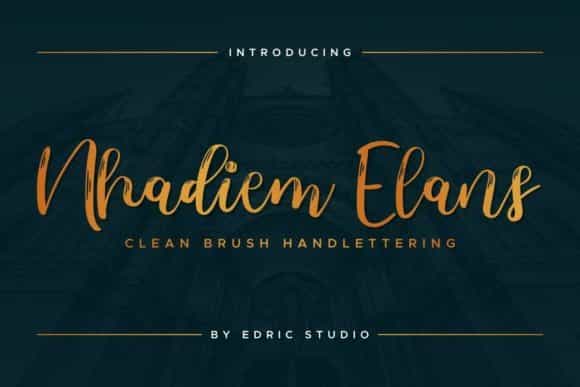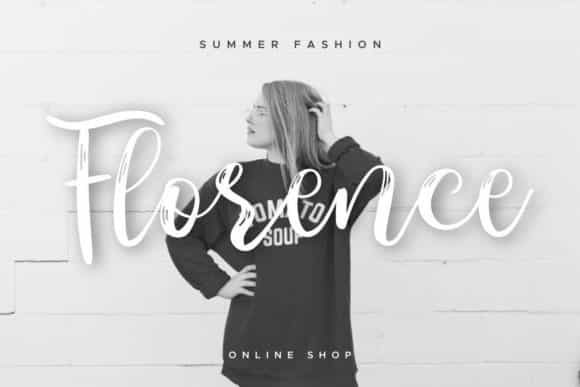
Discover Nhadiem Elans Script Font, part of the Brush Handwritten collection—a versatile and unique font perfect for adding a personal touch to your projects. Download it for free and enjoy crafting designs with style, from invitations to social media posts. This font is available exclusively for personal use, giving you the freedom to create without limits. Unlock your creativity with Nhadiem Elans Script Font today!
Nhadiem Elans is a brush script font, which is the dapper handwritten font with a personal charm. Nhadiem Elans is just the right fit for branding projects, homeware designs, product packaging – or he can be used as a stylish text overlay to any background image with his quick dry strokes and signature style.